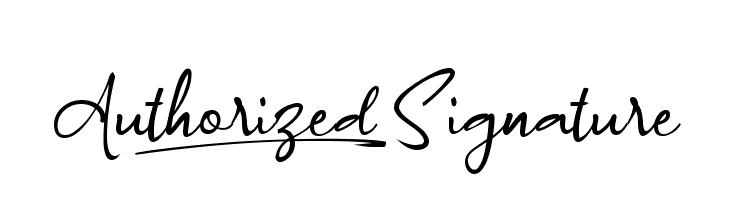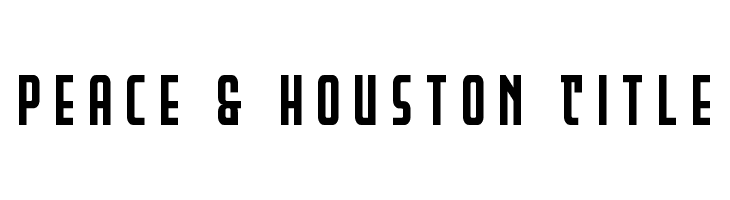
An elegant, cursive font with fluid, interconnected strokes.
A fluid, elegant script font with a handwritten calligraphic style.
A lively, cursive handwritten font with fluid and dynamic letterforms.
A casual, elegant handwritten font with fluid strokes and dynamic slant.
A lively and dynamic script font with fluid, interconnected strokes.
An elegant, cursive script font with fluid, handwritten strokes.
A cursive, handwritten font with elegant, flowing strokes.
An elegant, flowing handwritten font with graceful curves and loops.
A bold, stencil-like font with a military-inspired design.
A bold, geometric font with a modern, industrial style.